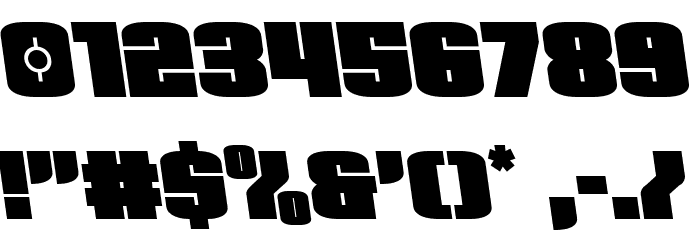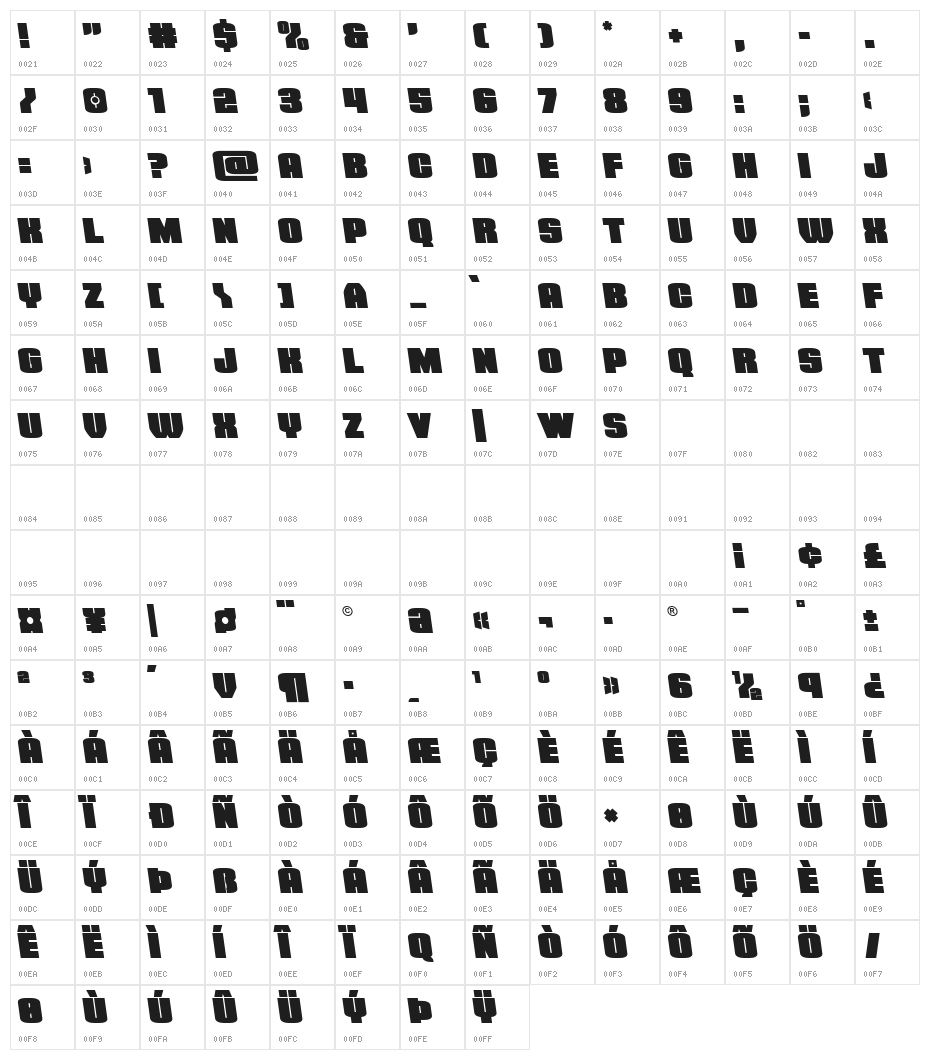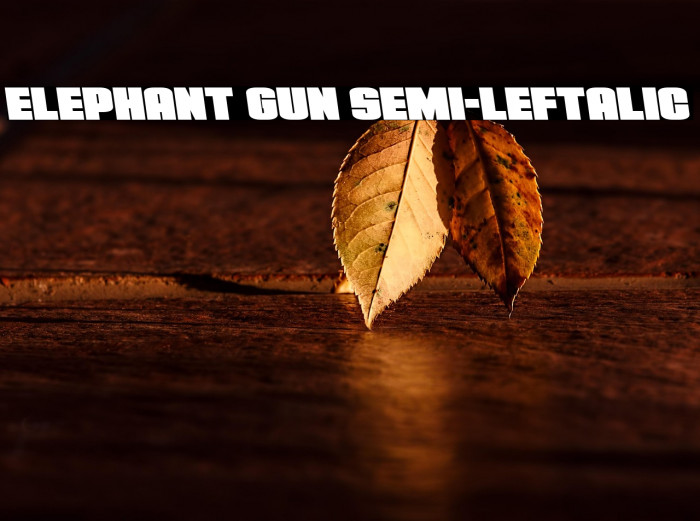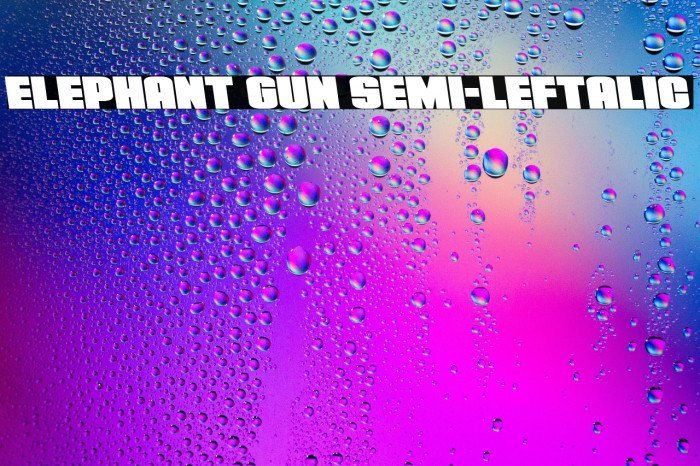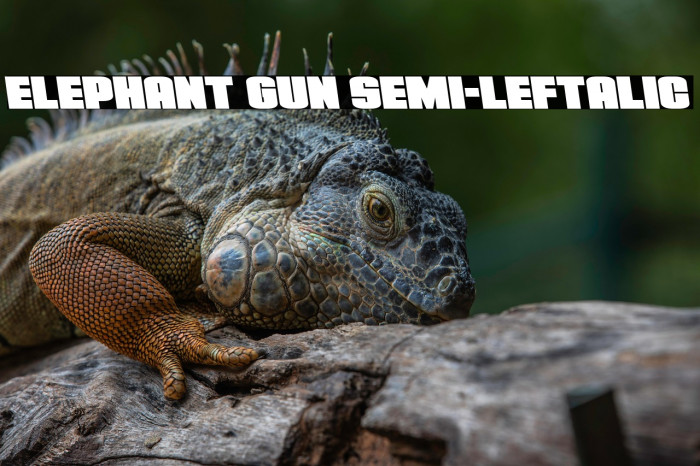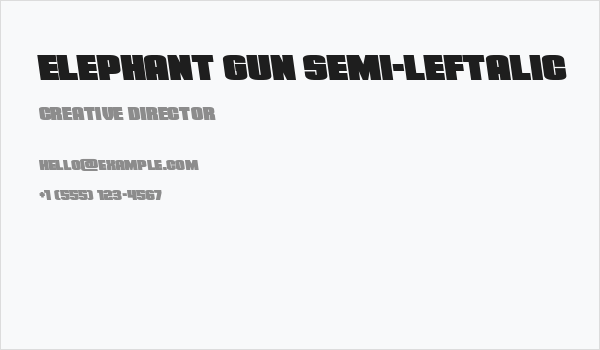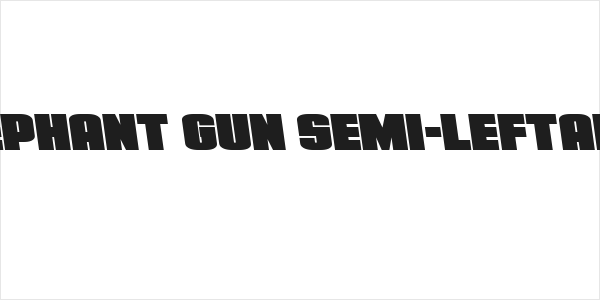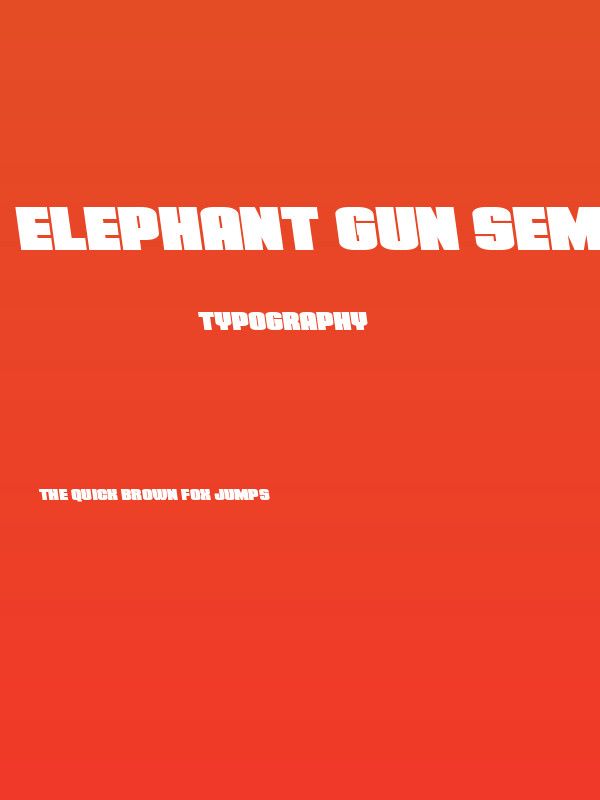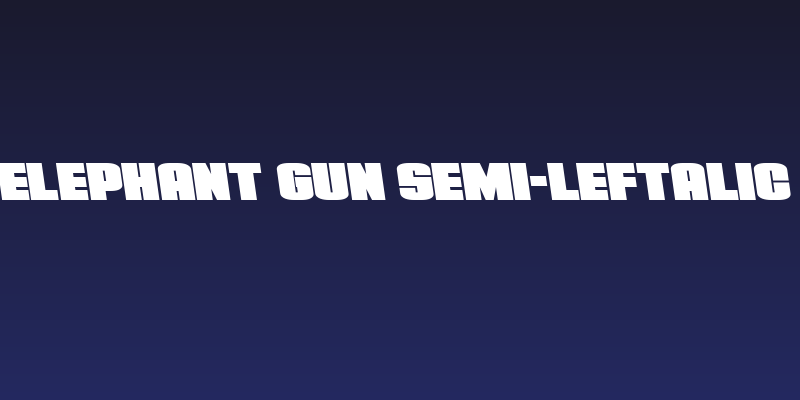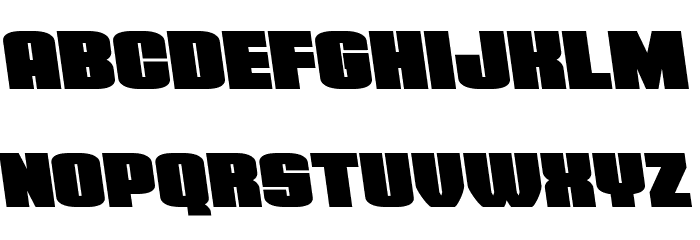
Elephant Gun Semi-Leftalic Font
Elephant Gun Semi-Leftalic Description
This font features a bold and impactful design with thick, blocky letters that convey strength and presence. The characters are slightly slanted, giving a dynamic and forward-moving appearance. The uppercase and lowercase letters maintain a consistent weight, emphasizing a robust and solid structure. The numbers and special characters follow the same bold style, ensuring uniformity across all elements. The font's heavy weight and strong lines make it ideal for attention-grabbing headlines and designs that require a commanding visual impact.